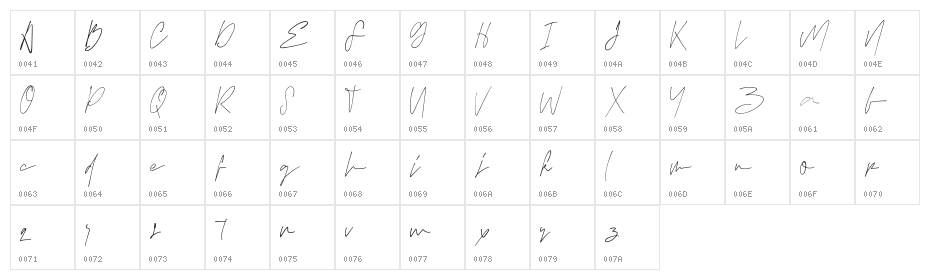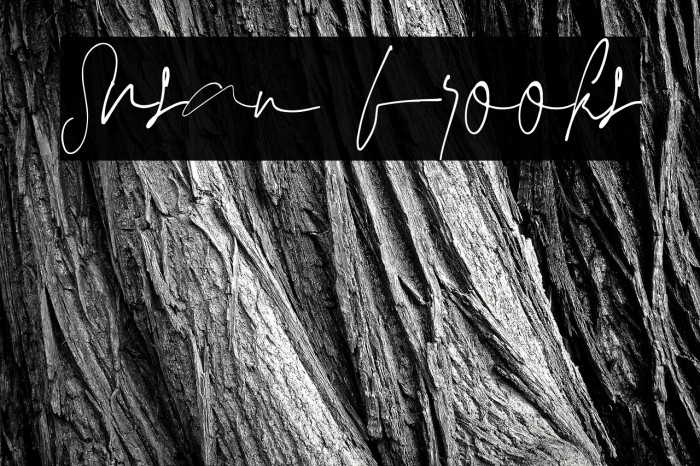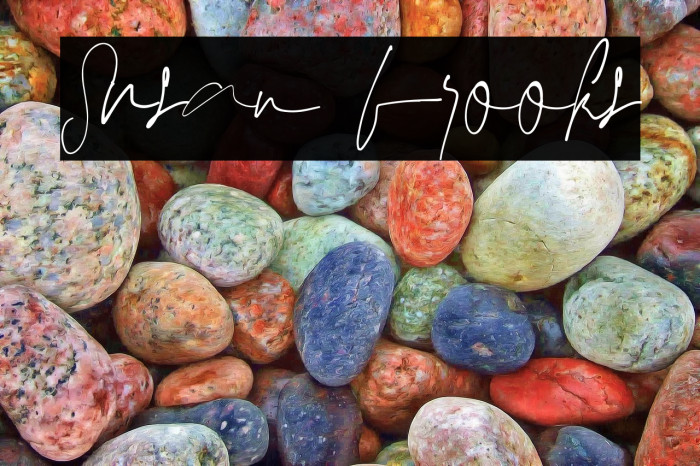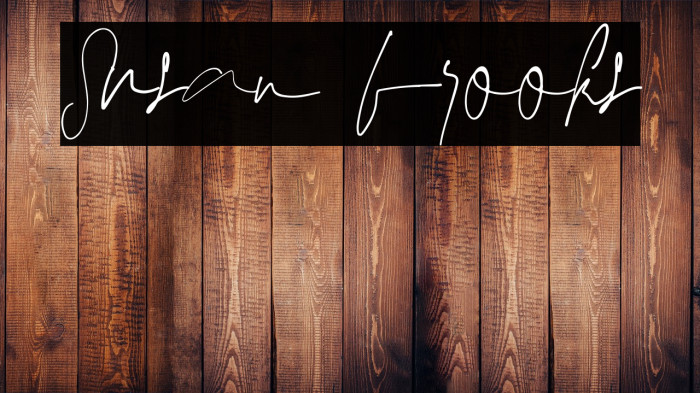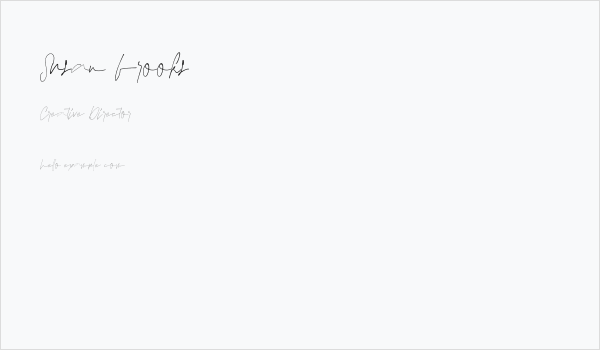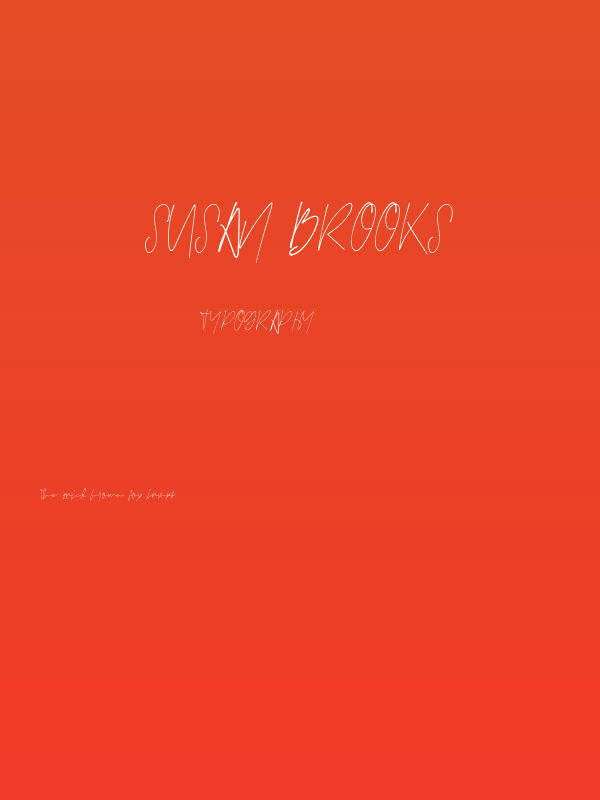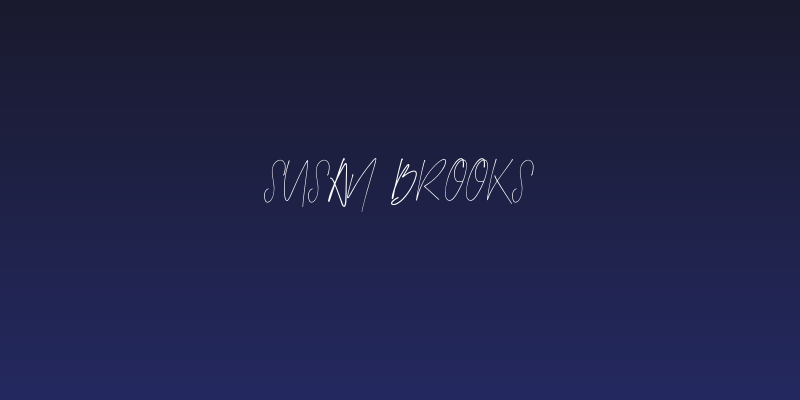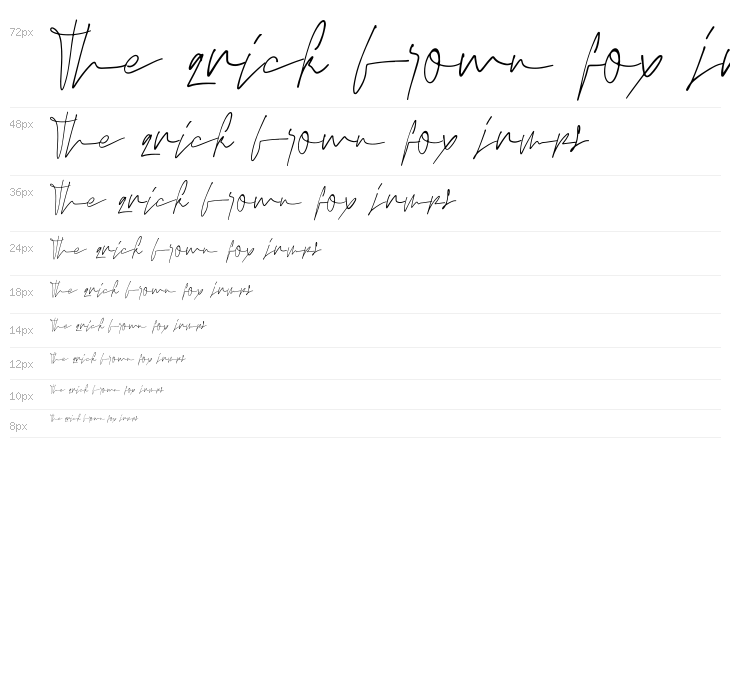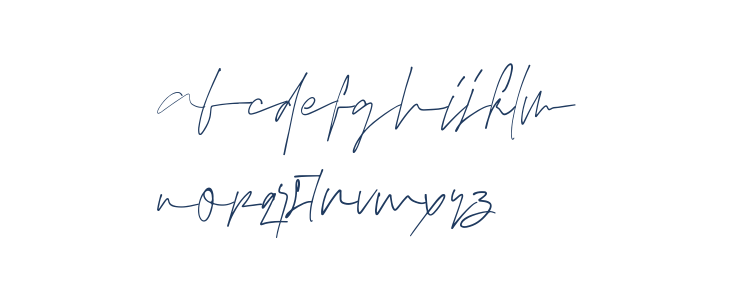
Susan brooks Font
Susan brooks Description
This font exhibits a dynamic and expressive handwritten style, characterized by its fluid and continuous strokes. The letters are elegantly elongated, with a natural flow that mimics the movement of a pen on paper. The uppercase and lowercase letters maintain a consistent style, with slight variations in thickness that add a personal touch. The numerals and special characters are seamlessly integrated, maintaining the overall aesthetic. This font captures the essence of a personal signature, making it ideal for projects that require a touch of individuality and elegance.
Proposed ProjectsIdeal for personal branding, invitations, greeting cards, and artistic projects that require a personal touch.